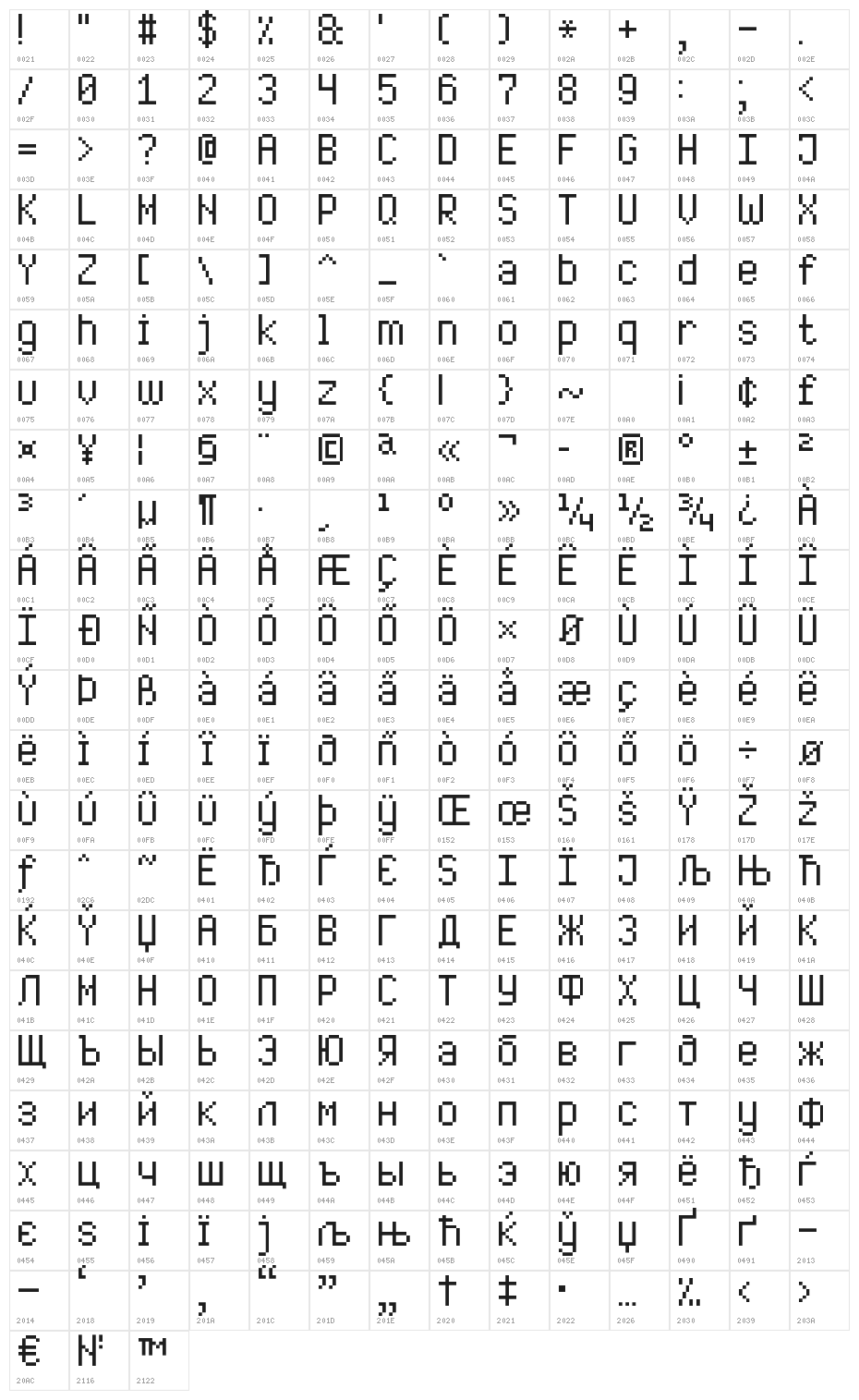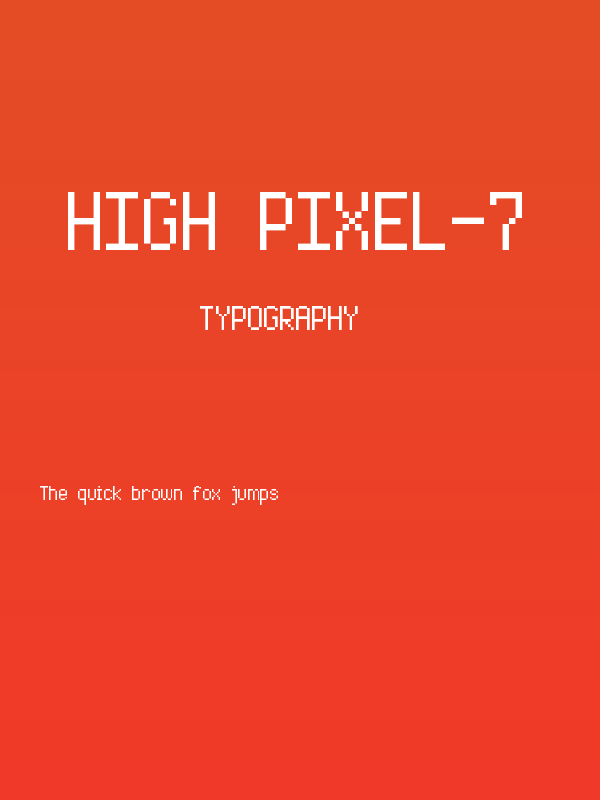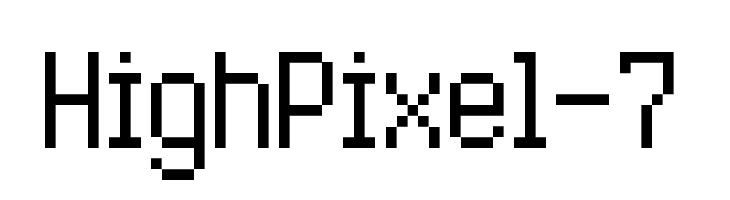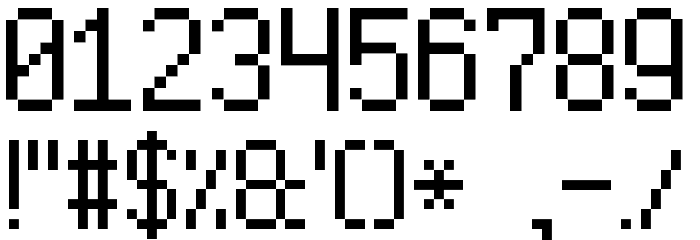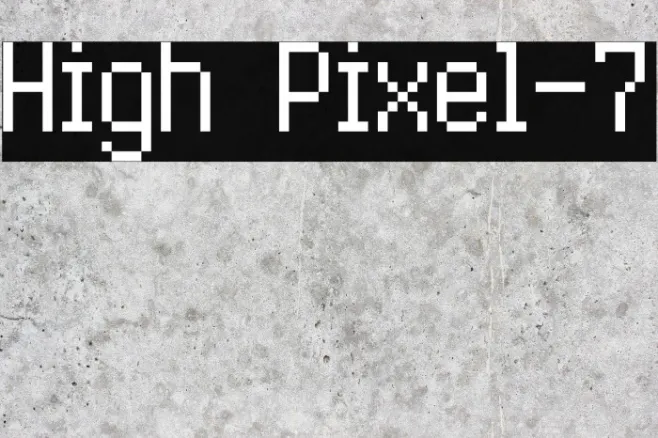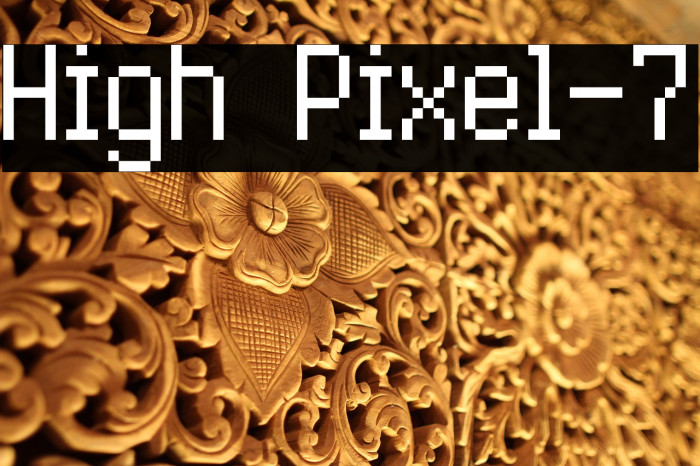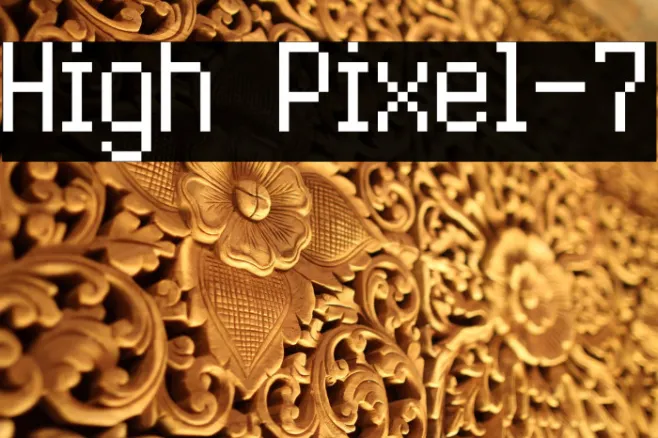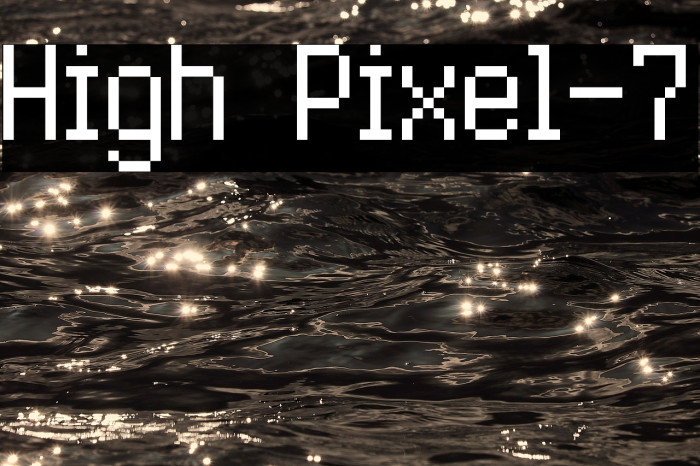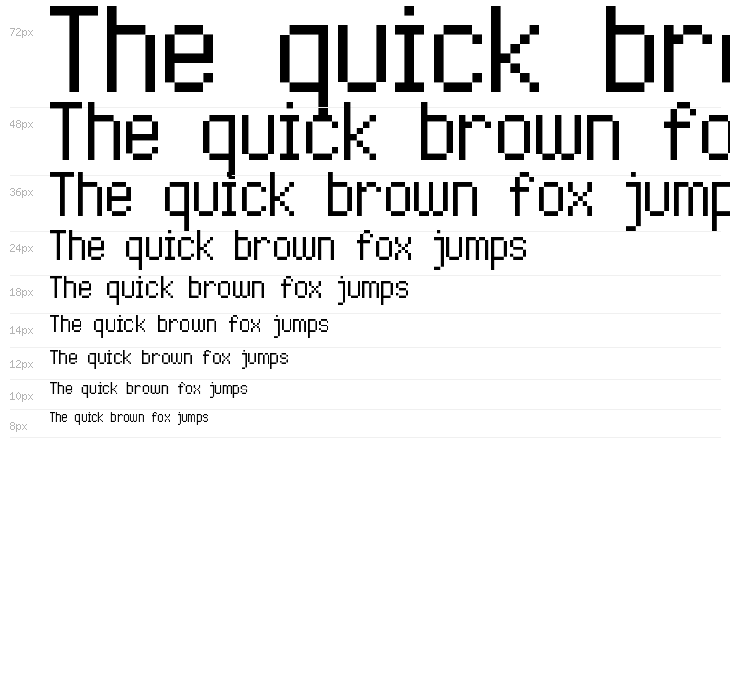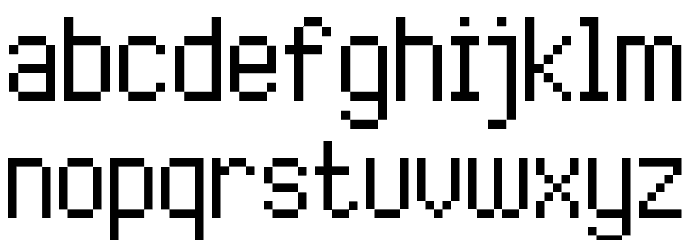
High Pixel-7 Font
High Pixel-7 Description
This font exhibits a distinct pixelated style reminiscent of early digital displays and video games. Each character is constructed with a grid-like precision, giving it a retro, 8-bit appearance. The uniformity in stroke width and the blocky, geometric shapes contribute to its digital aesthetic. The uppercase and lowercase letters maintain a consistent height, enhancing readability while preserving the nostalgic feel. Numbers and special characters follow the same pixelated pattern, ensuring a cohesive look across all glyphs. This font is ideal for projects that aim to evoke a sense of nostalgia or pay homage to classic digital interfaces.
| Use Case | Logos, Headlines, Digital Art |
| Proposed Projects | Perfect for retro video games, digital art projects, tech-themed designs, and nostalgic branding. |